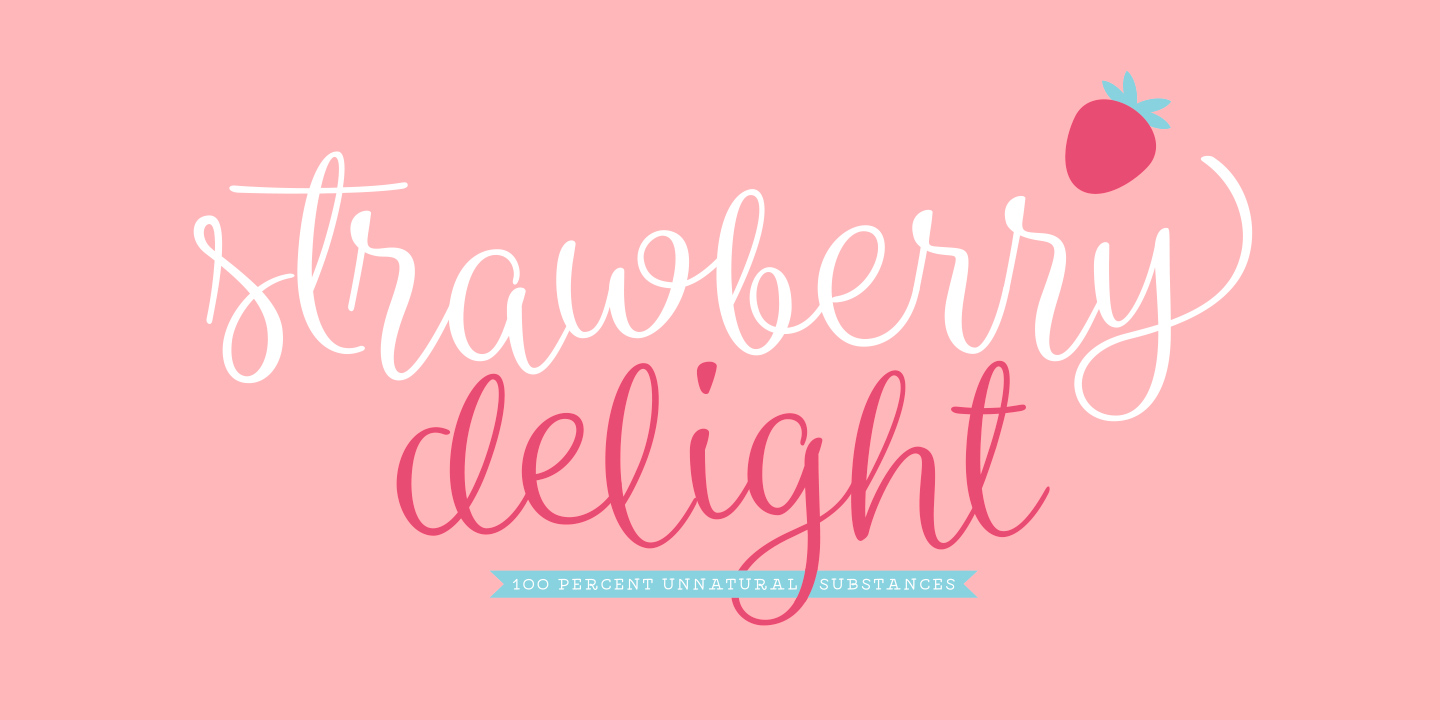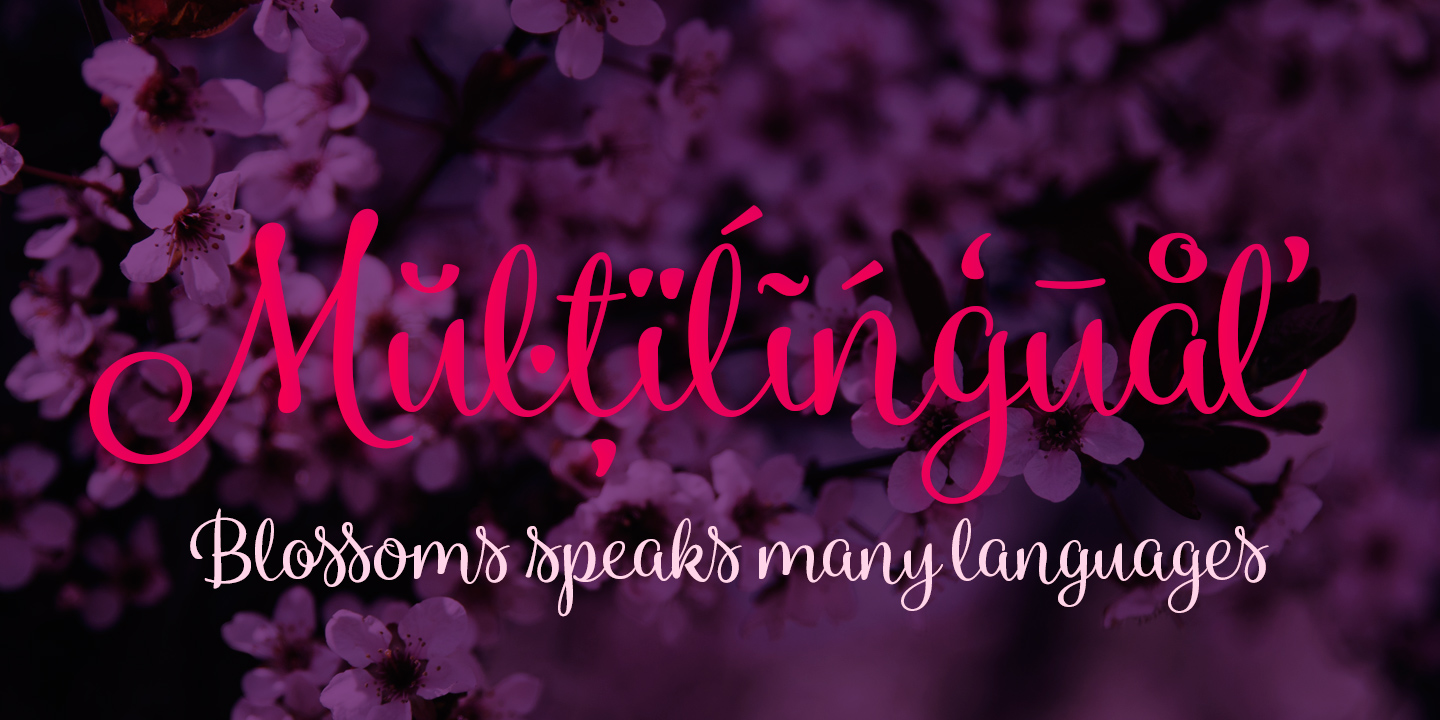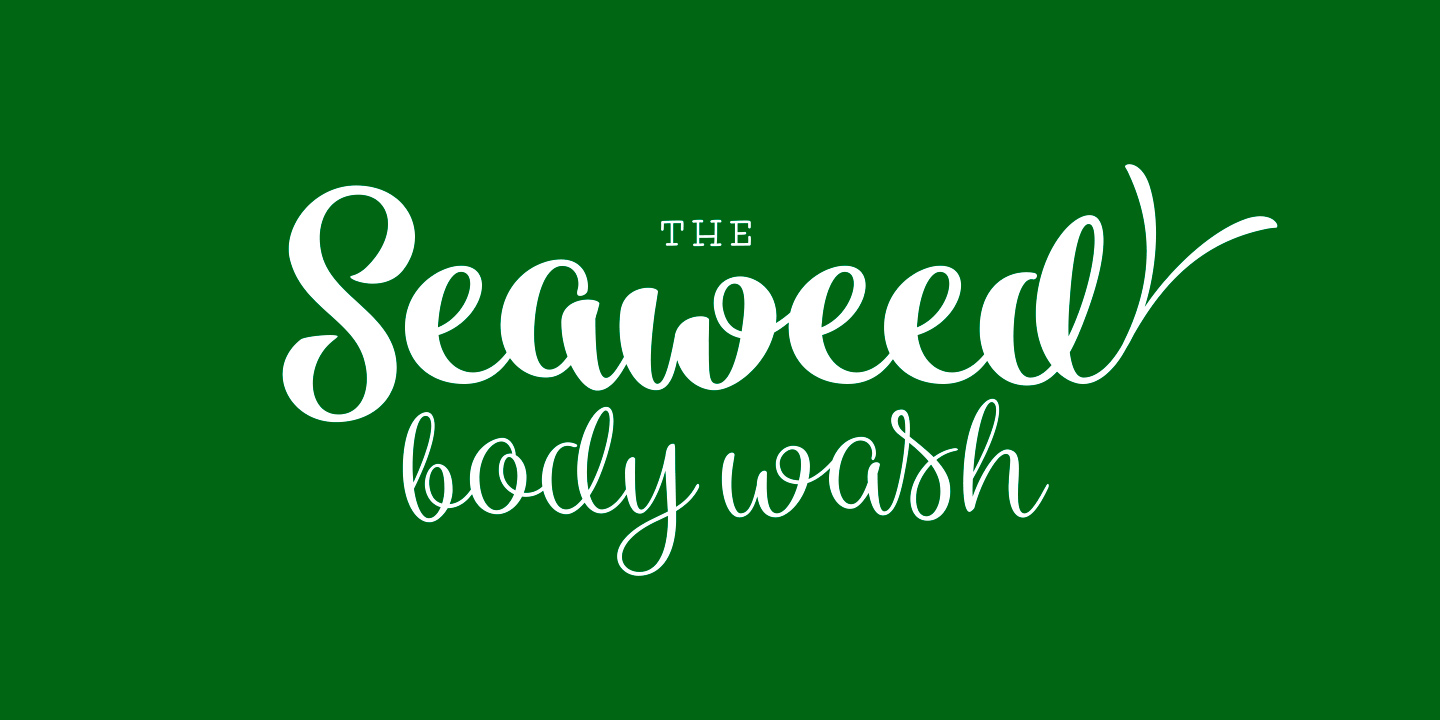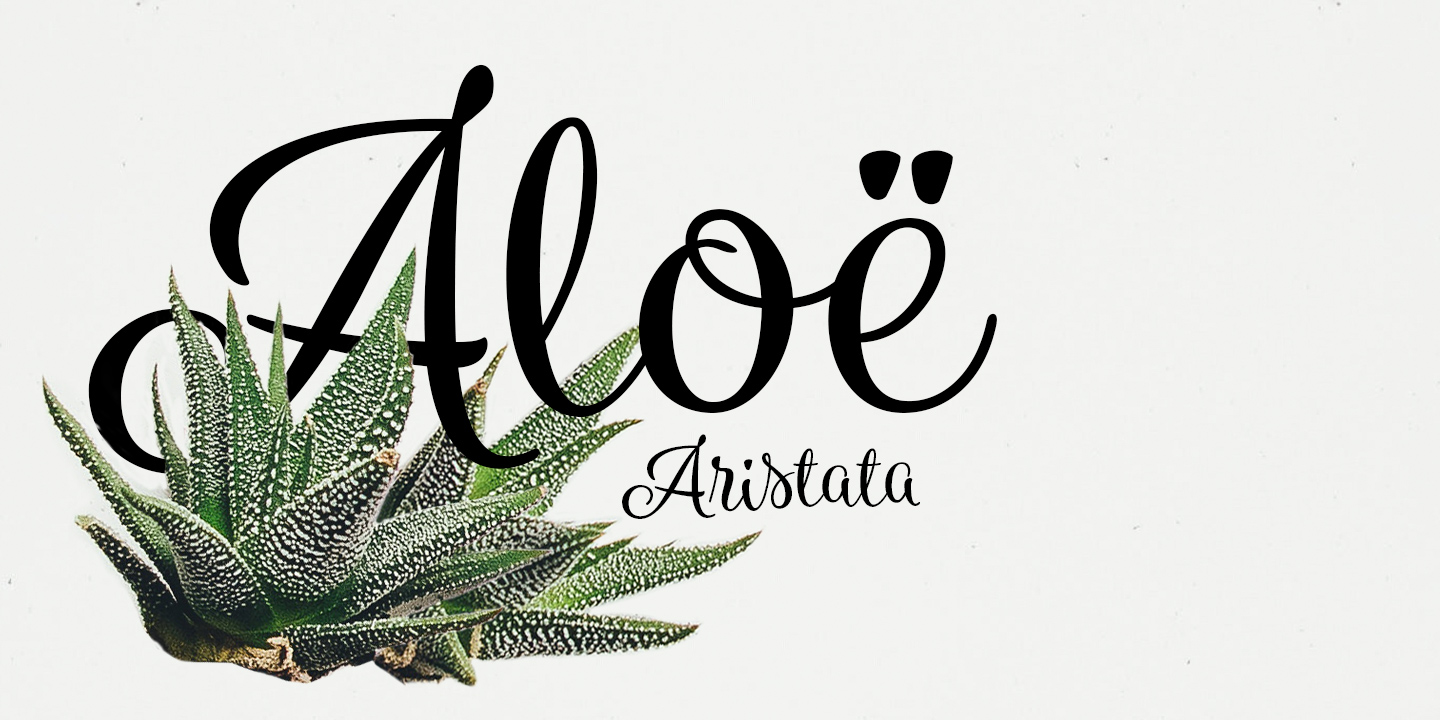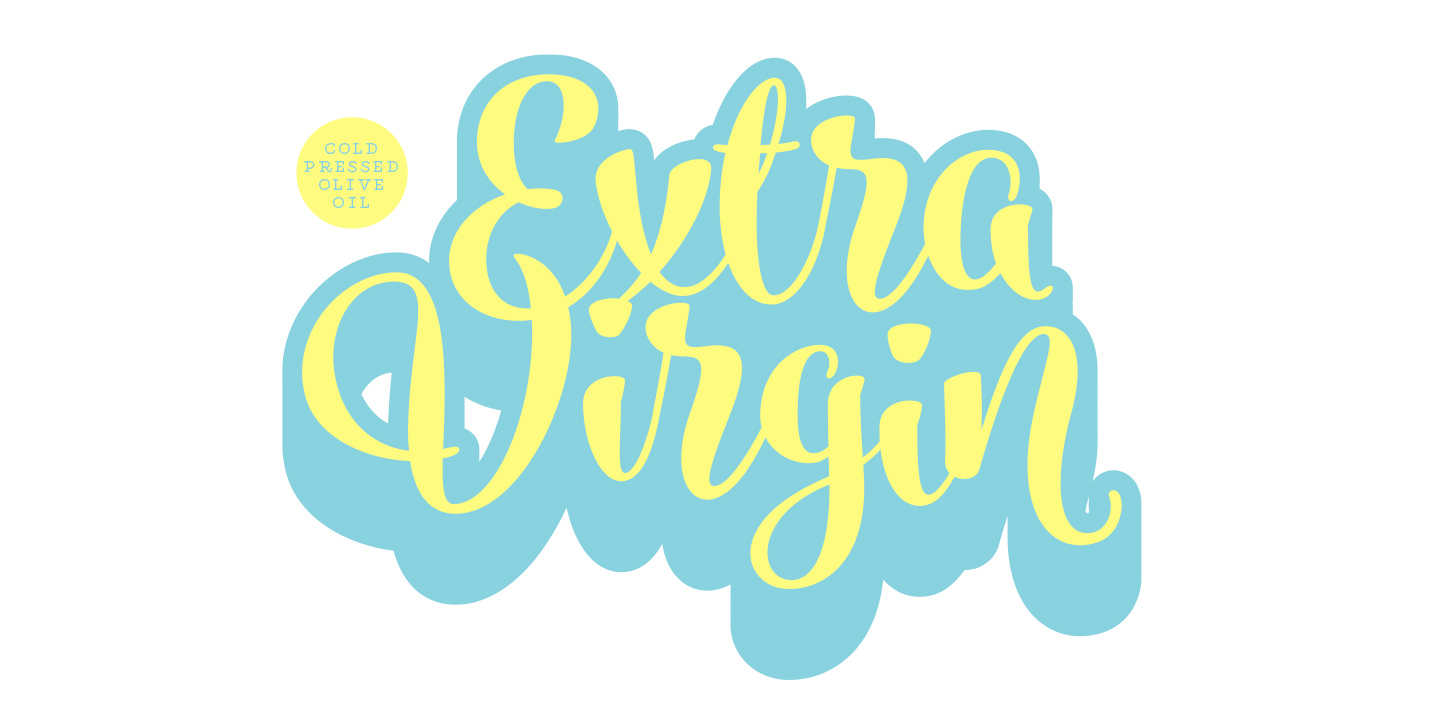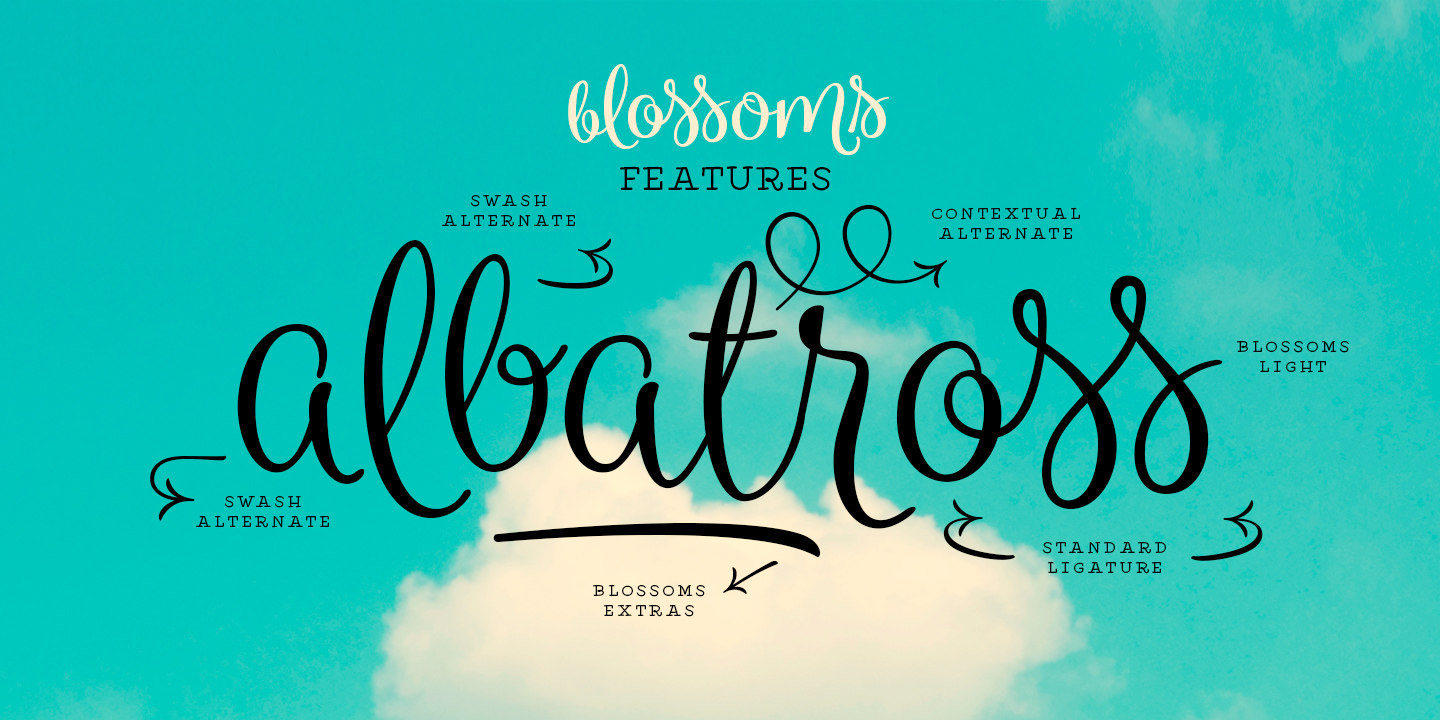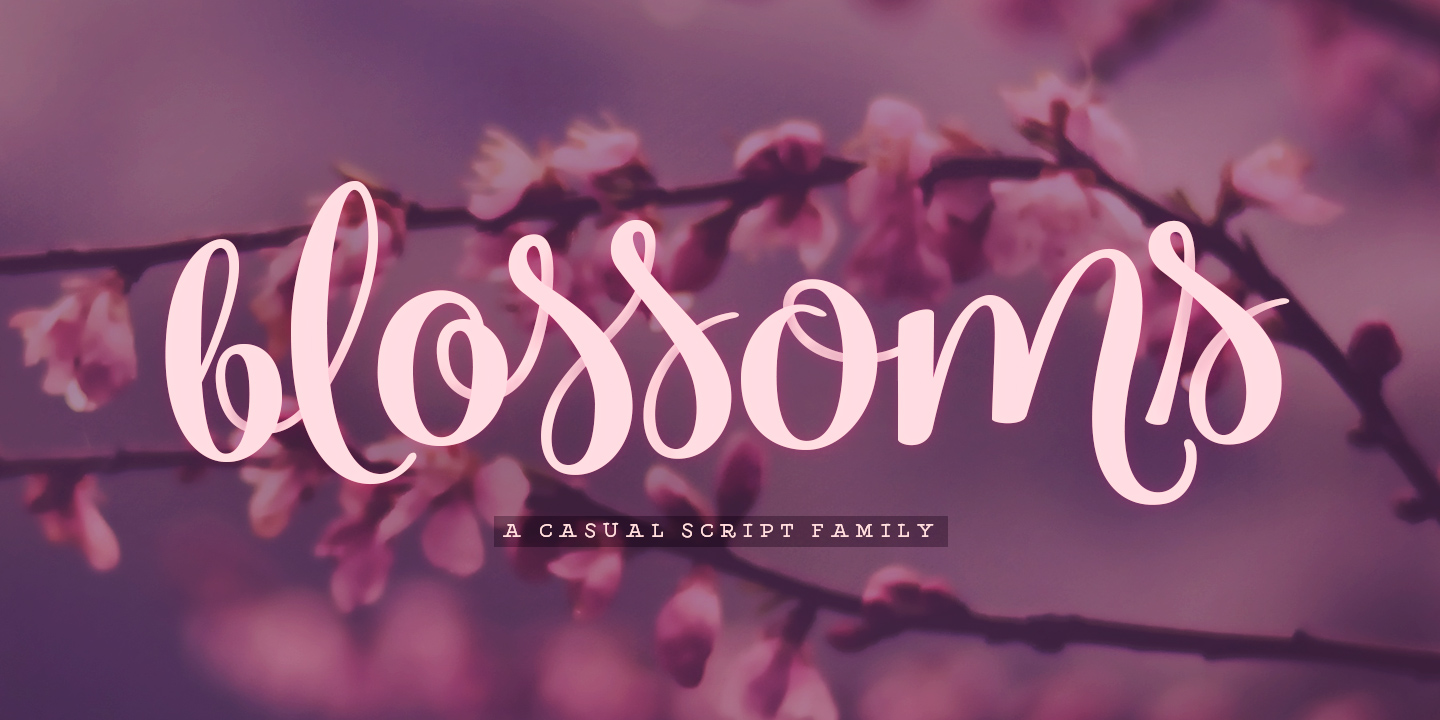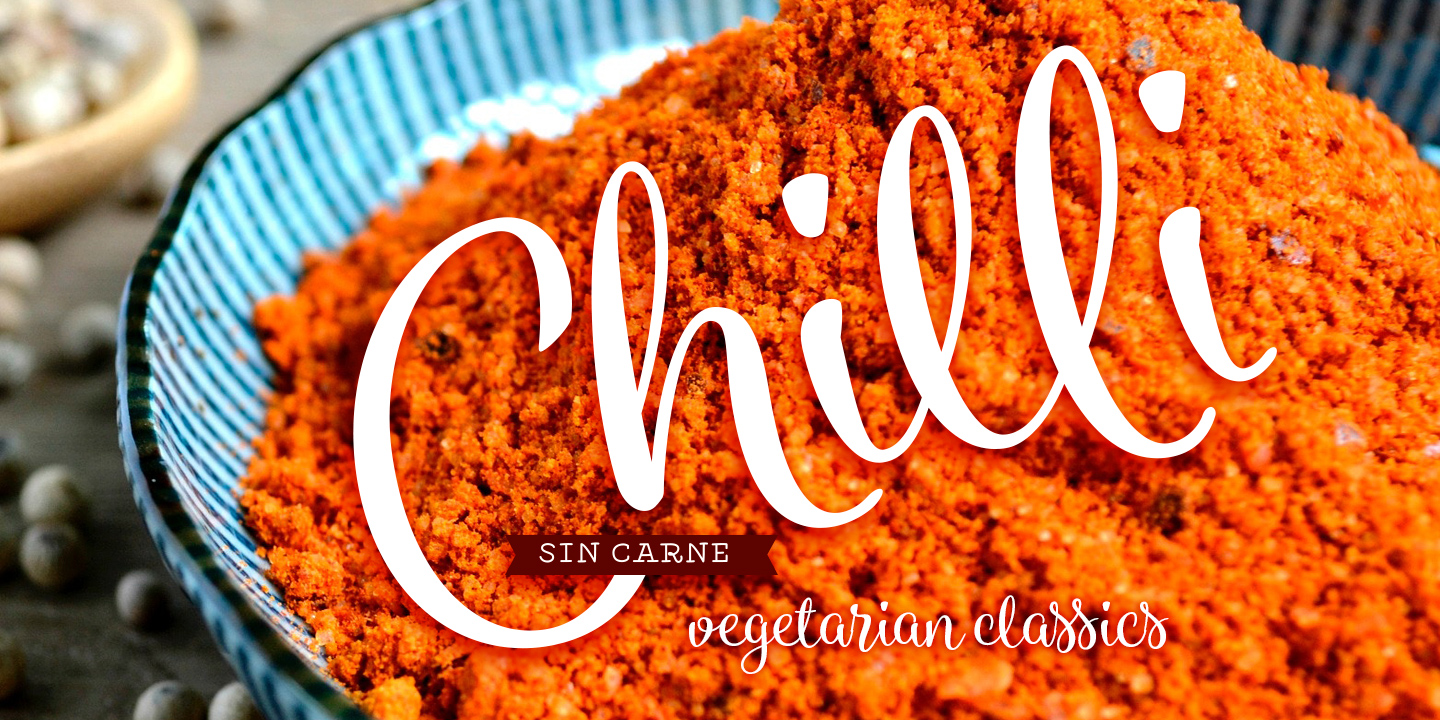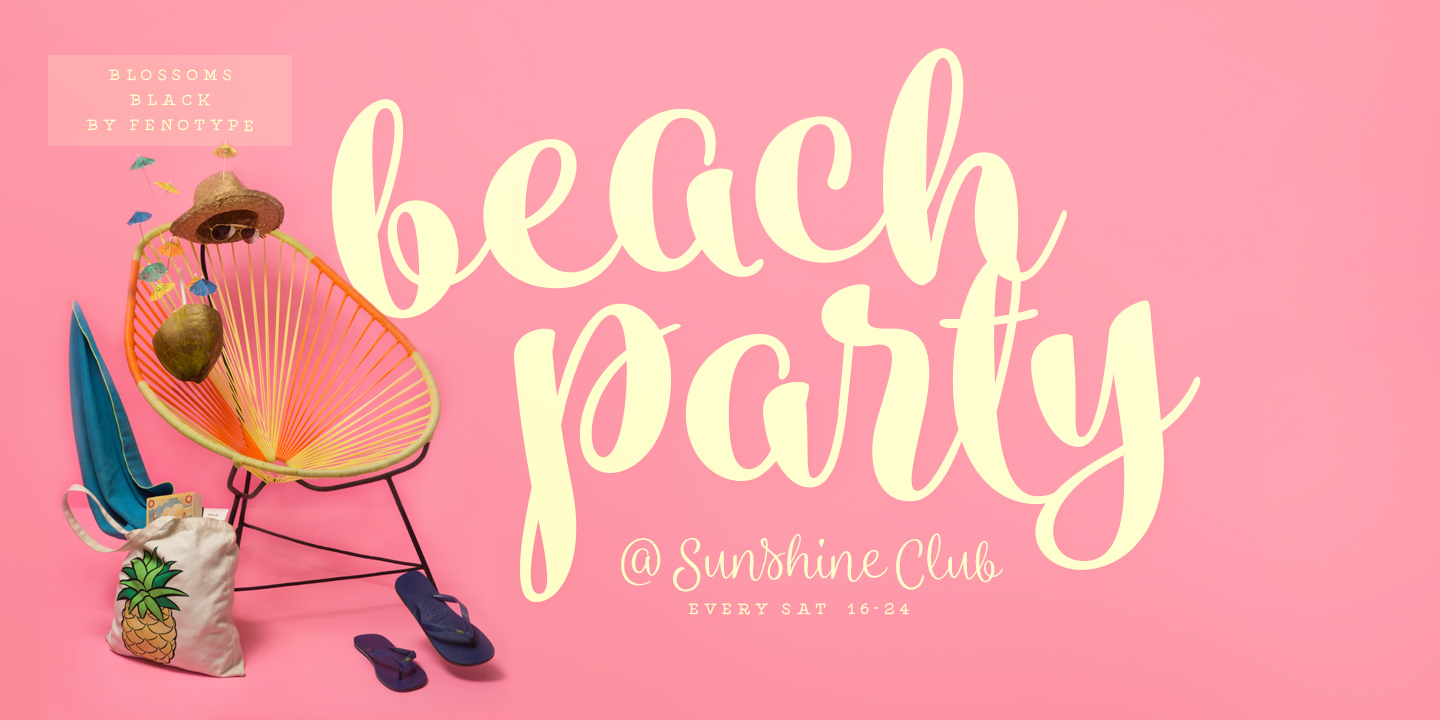
Blossoms is a radiant display font choice for any project from branding to packaging and from websites to greeting cards.
Ligatures, Contextual Alternates, Swash